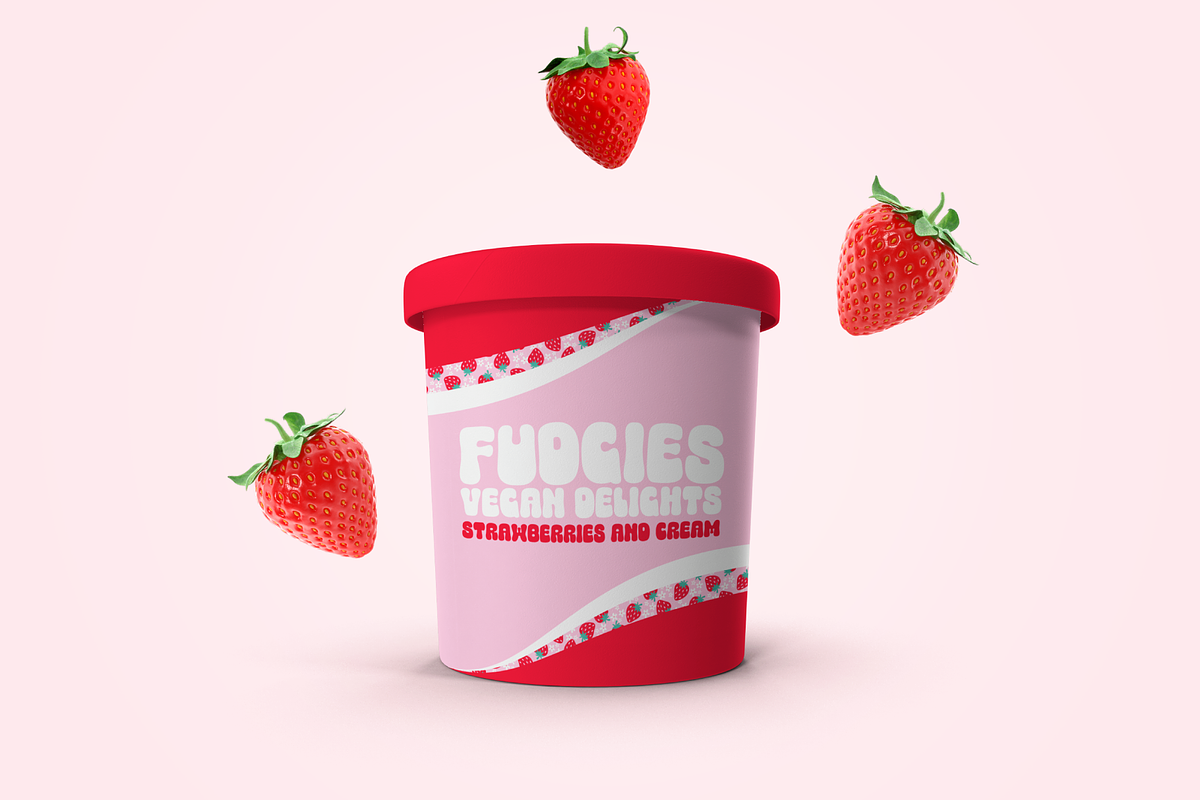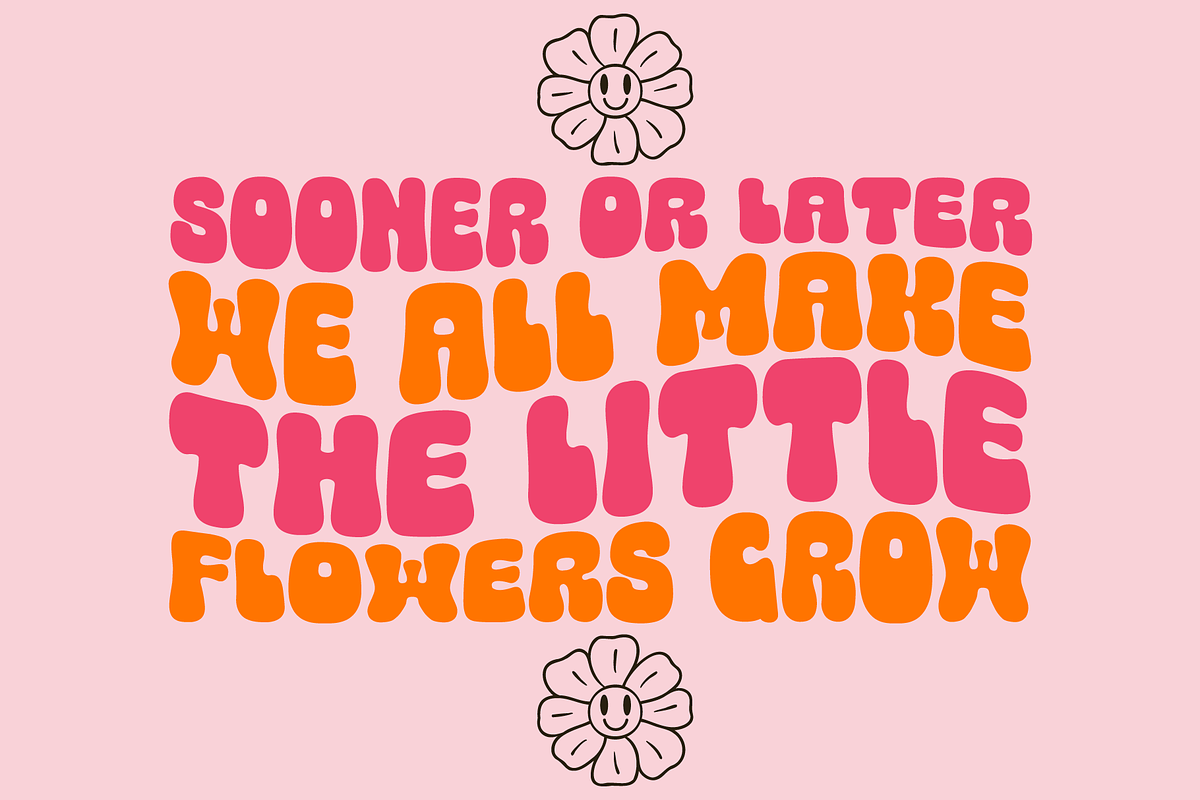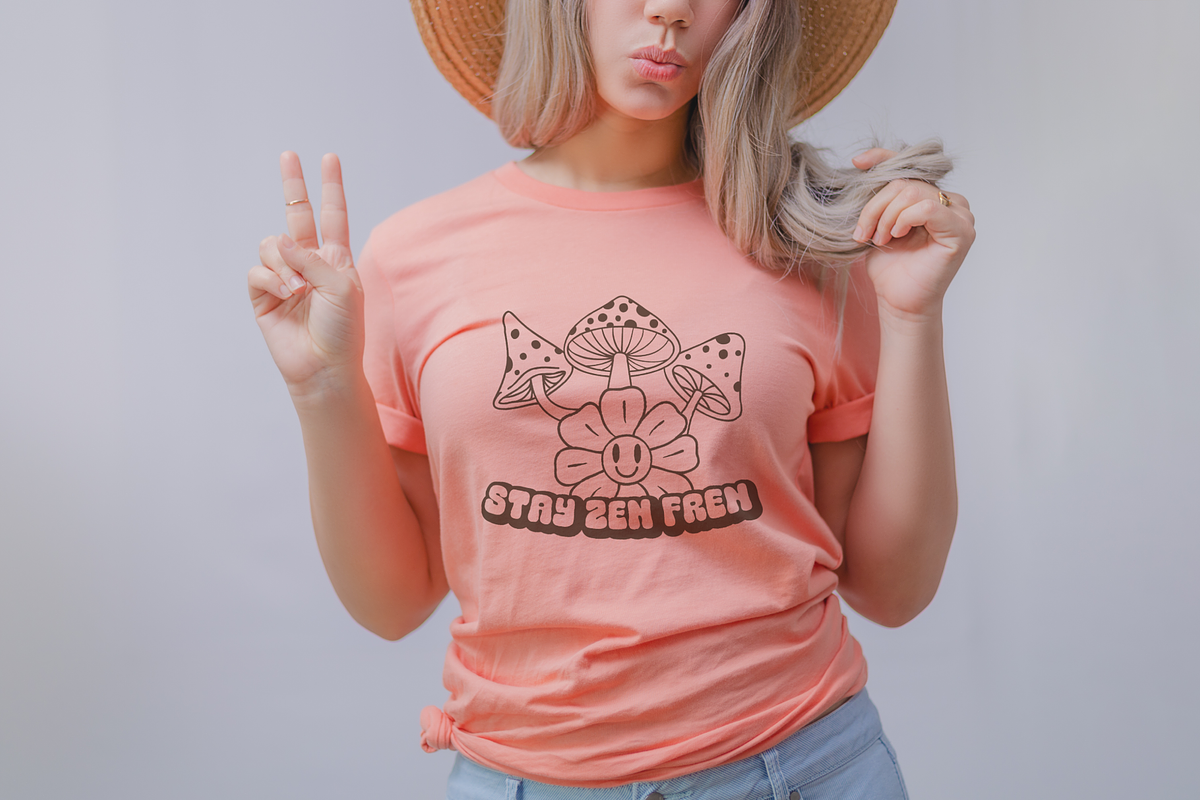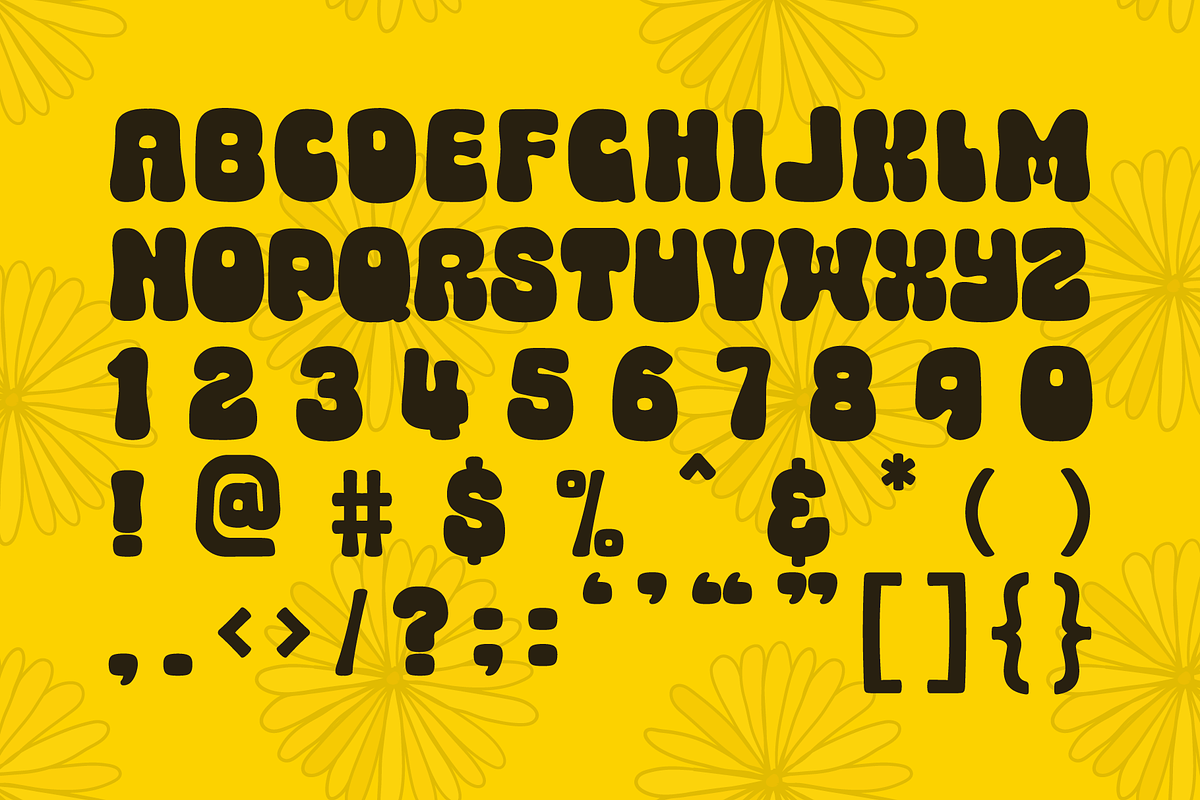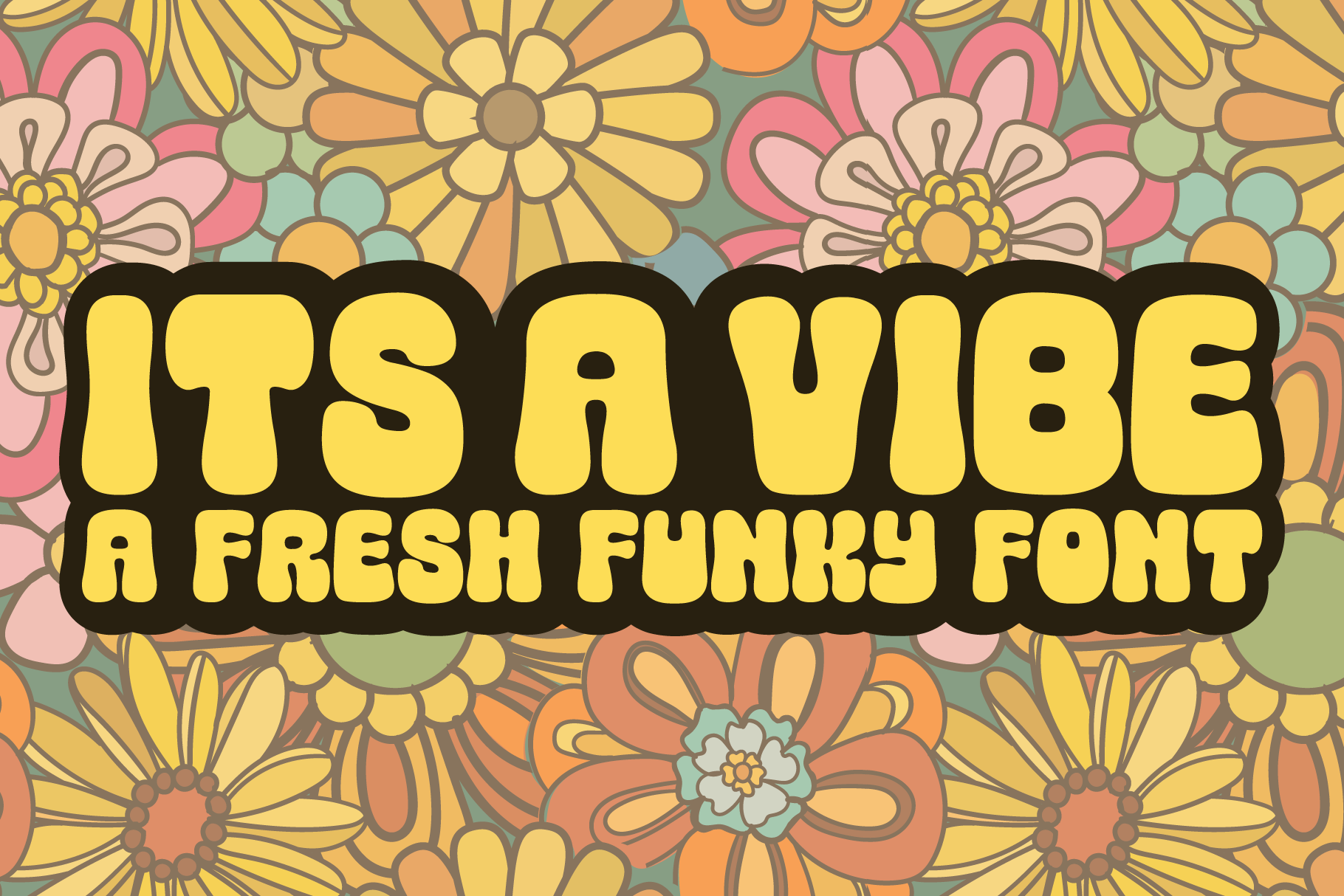
Its a vibe - a funky fresh font
Say hey to Its a Vibe - a funky fresh font! This chunky retro font has all the chill summer vibes, making it perfect for branding, t-shirts, and more!
Includes a total of 445 glyphs with support for most European languages.